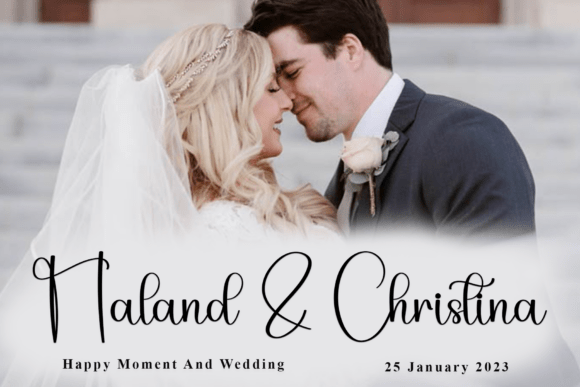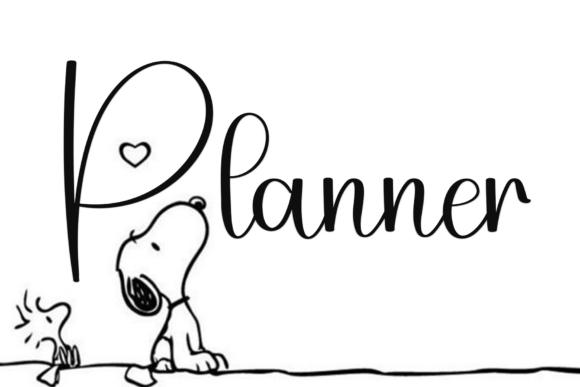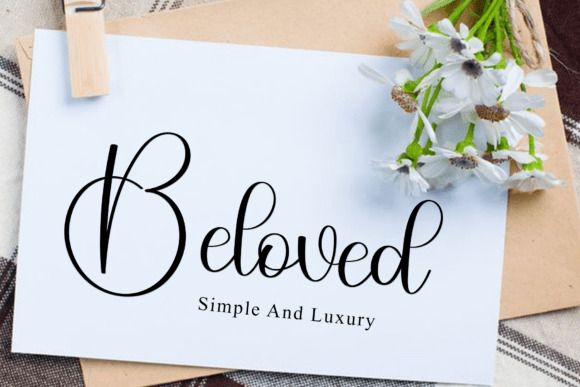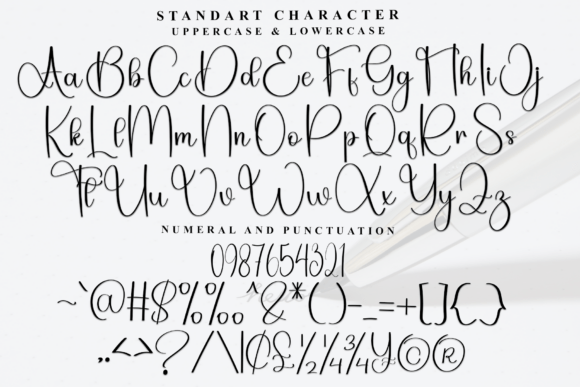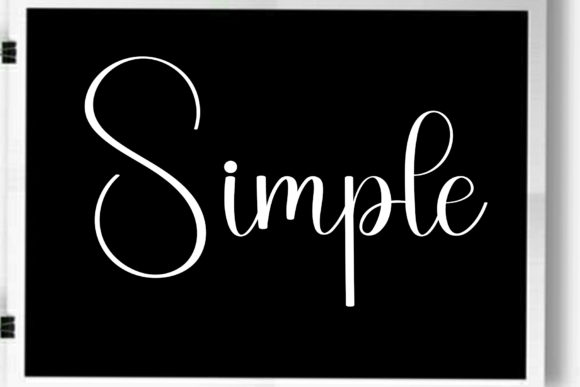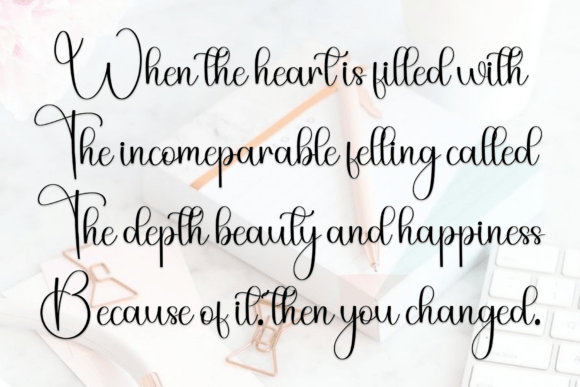
Discover the Charm of Agintha Font: Elevate Your Designs with its Unique Touch
In the world of typography, a font can make or break a design. It’s the foundation upon which creativity is built, and the right choice can elevate a project from ordinary to extraordinary. If you’re a designer, crafter, or creative looking for a font that stands out from the crowd, look no further than Agintha Font. This beautiful and eye-catching typeface is designed with a soft, unique touch that will add a special character to your work.
The Distinctive Strokes of Agintha Font
Agintha Font boasts distinctive strokes that give it a special character, making it both meaningful and versatile for future use. Its unique design ensures that your projects will have a distinct look that sets them apart from others. Whether you’re working on a design project, craft, or other creative work, Agintha Font is the perfect choice. Its various characters offer a range of possibilities, allowing you to experiment and find the perfect fit for your vision.
Agintha Font is a dream come true for designers and crafters. Its natural font style is ideal for a wide range of products, from digital designs to handmade crafts. The font’s compatibility with various applications, including Windows and open-source platforms, makes it easy to incorporate into your workflow. Whether you’re creating a logo, brochure, or social media graphics, Agintha Font will enhance your designs and make them appealing to a wide range of audiences.
Key Features of Agintha Font
- Unique and eye-catching design: Agintha Font’s soft, unique touch sets it apart from other fonts.
- Distinctive strokes: Give your projects a special character that makes them stand out.
- Versatile: Perfect for design projects, crafts, and other creative works.
- Various characters: Offers a range of possibilities for experimentation and creativity.
Why Choose Agintha Font?
With so many fonts available, why choose Agintha Font? The answer lies in its ability to add a touch of elegance and sophistication to your designs. Its unique design ensures that your projects will have a distinct look that sets them apart from others. Additionally, its versatility and compatibility with various applications make it a practical choice for designers and crafters.
Tips for Using Agintha Font
To get the most out of Agintha Font, here are a few tips:
- Experiment with different sizes and styles: Find the perfect fit for your project.
- Pair with complementary fonts: Create a harmonious and visually appealing design.
- Use it consistently: Establish a strong brand identity.
Agintha Font is a beautiful and eye-catching typeface that will elevate your designs and add a touch of elegance to your projects. Its unique design, versatility, and compatibility with various applications make it a must-have for designers and crafters. Whether you’re working on a design project, craft, or other creative work, Agintha Font is the perfect choice. So why wait? Discover the charm of Agintha Font today and take your designs to the next level.
In conclusion, Agintha Font is an excellent addition to any designer’s or crafter’s toolkit. Its distinctive strokes, unique design, and versatility make it a valuable resource for anyone looking to create stunning visual content. With its wide range of applications and compatibility with various platforms, Agintha Font is sure to become a favorite among creatives. So, go ahead and explore the possibilities of Agintha Font – your designs will thank you.